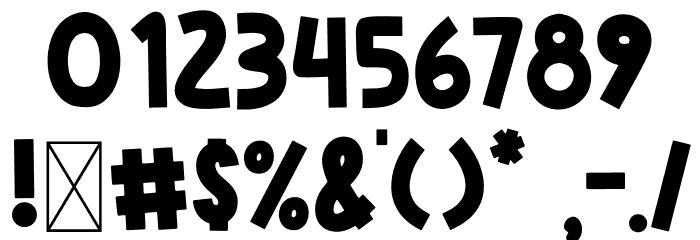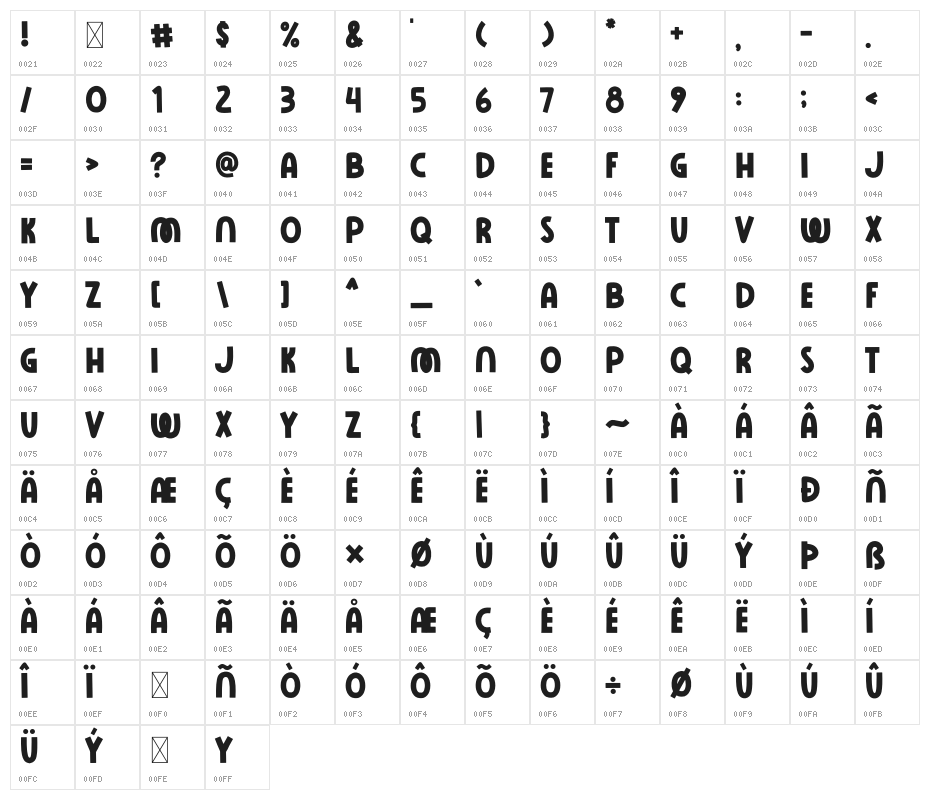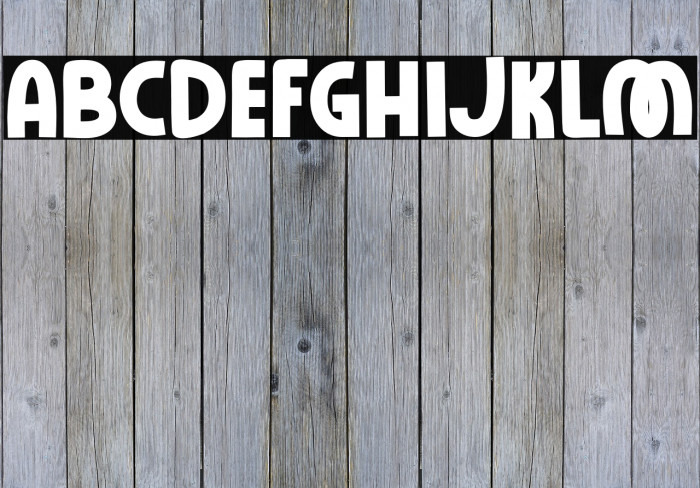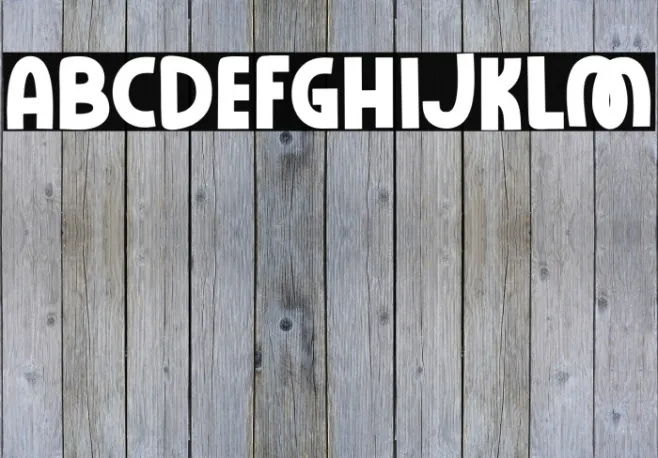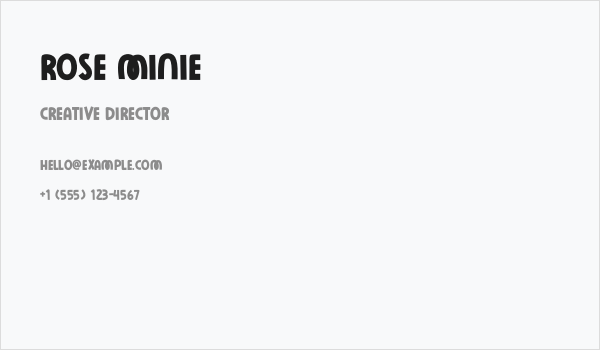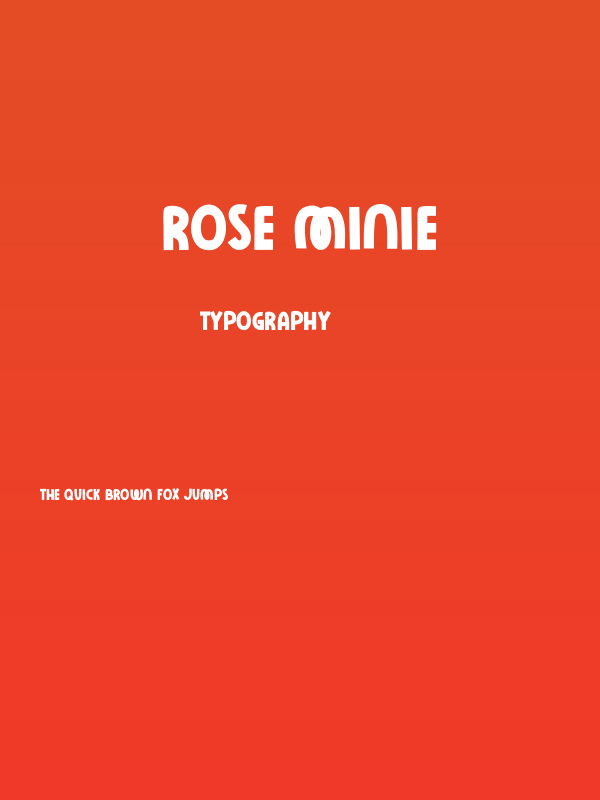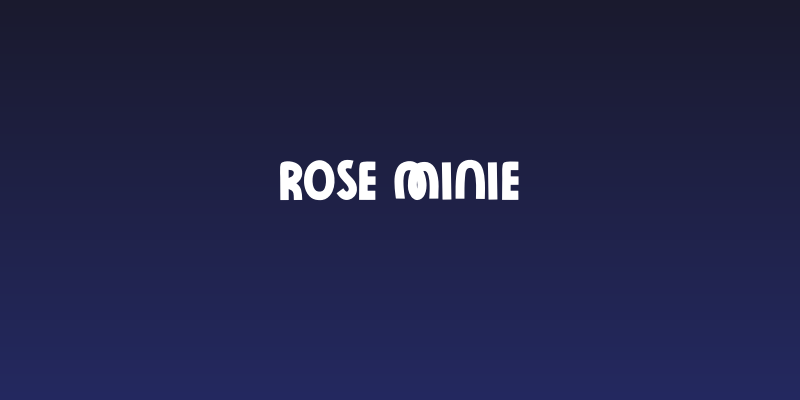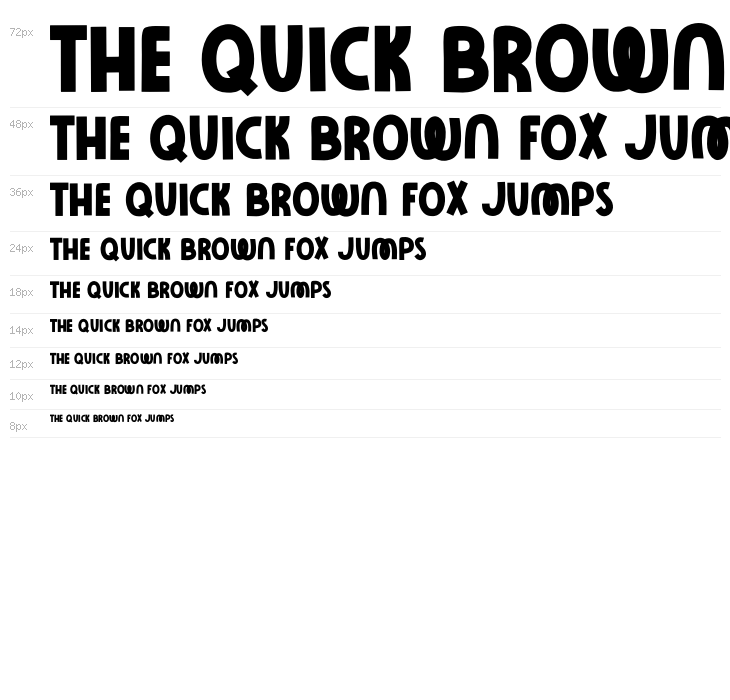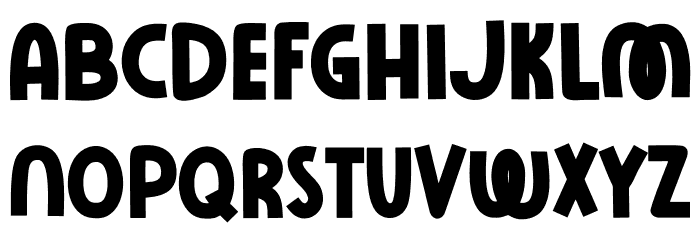
Rose Minie Font
Rose Minie Description
This font exhibits a bold and playful style with thick, rounded strokes that give it a friendly and approachable appearance. The characters are uniformly bold, with a slight retro flair, reminiscent of mid-20th-century design aesthetics. The letters are well-spaced, ensuring readability while maintaining a compact form. The numbers and special characters follow the same design principles, making the font versatile for various uses. Its unique character shapes, such as the rounded 'M' and the distinctive 'Q', add to its charm and make it stand out in display settings.
| Overall Style | Retro, Playful |
| Proposed Projects | Ideal for children's books, playful branding, posters, and retro-themed designs. |